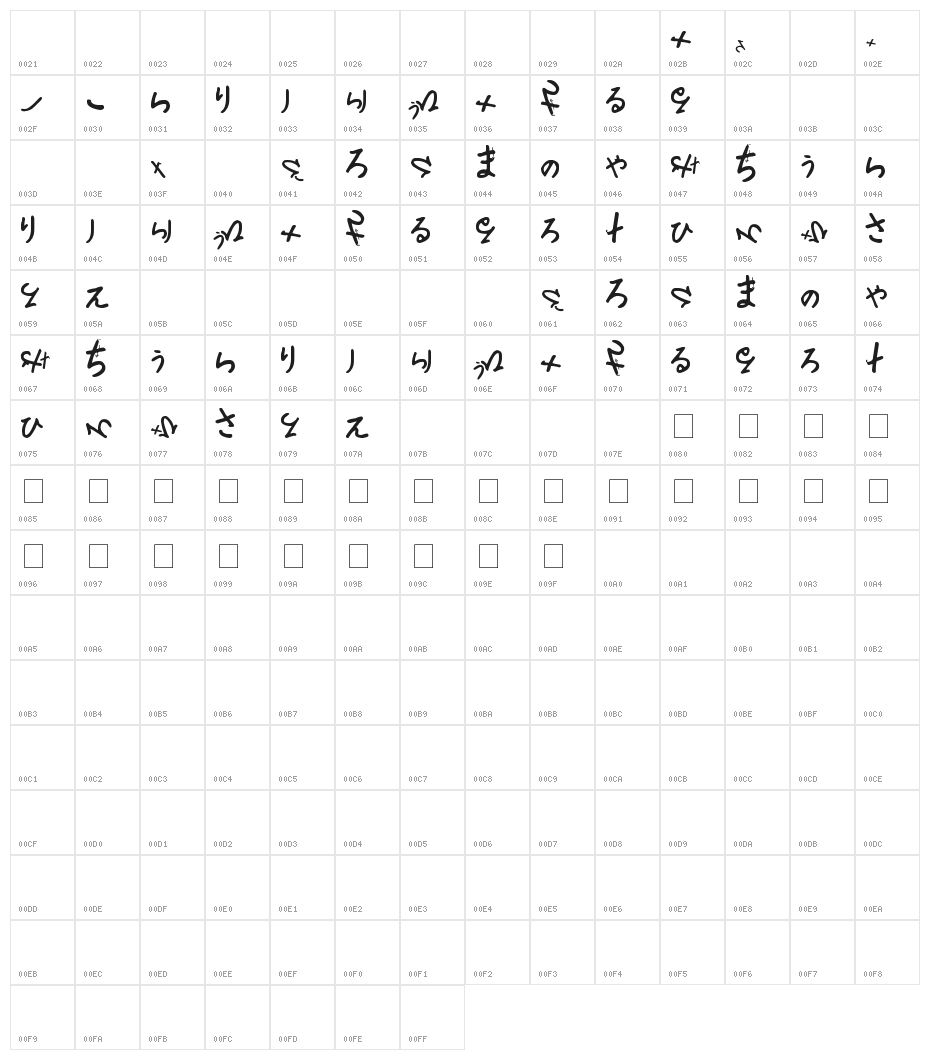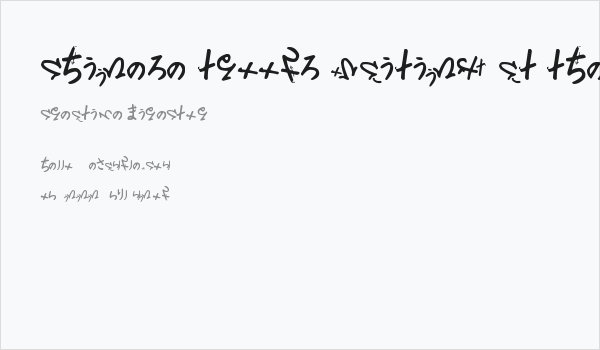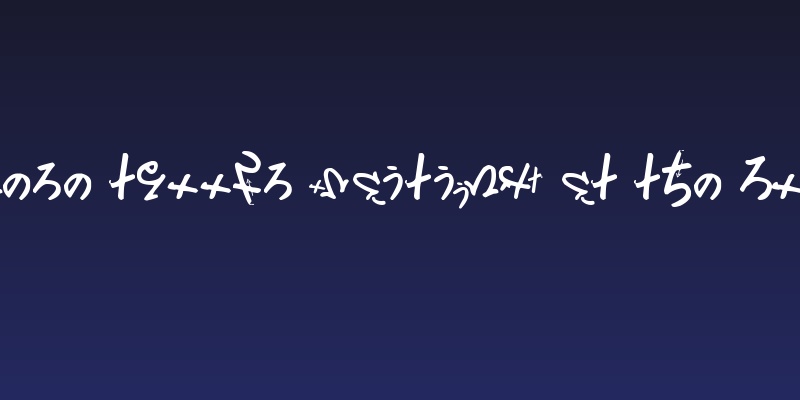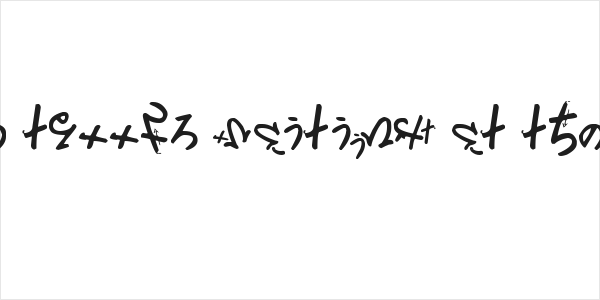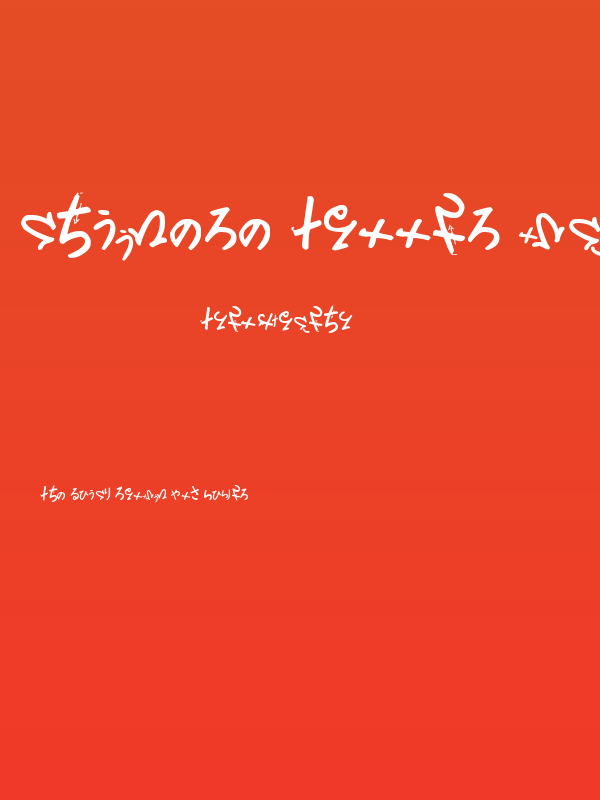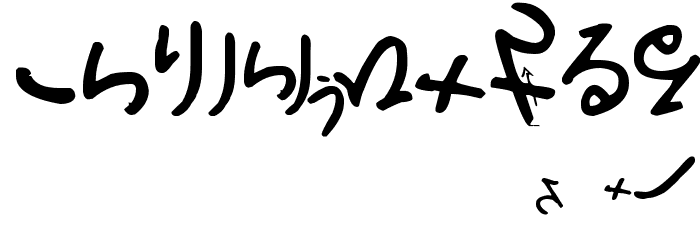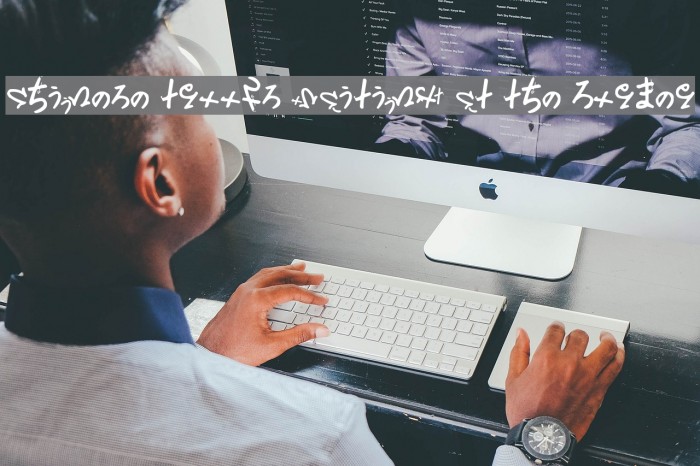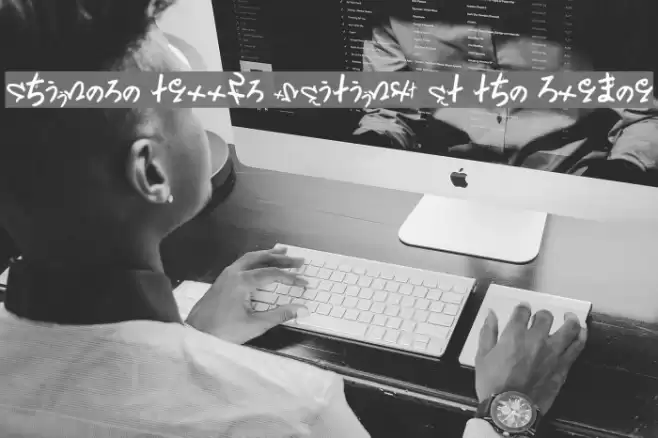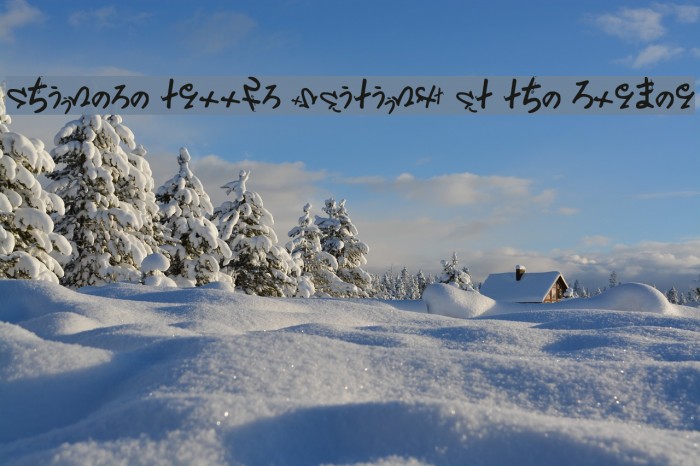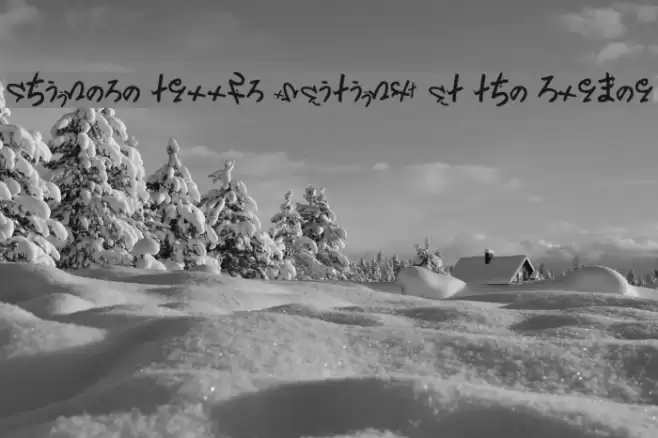
Chinese troops waiting at the border Font
Chinese troops waiting at the border Description
This font features a handwritten style with a playful and casual appearance. The characters are fluid and dynamic, with varying stroke thickness that adds a sense of movement and energy. The script-like quality gives it a personal touch, making it feel approachable and friendly. The strokes are slightly irregular, contributing to its informal and relaxed vibe. This font is well-suited for projects that require a human touch or a sense of spontaneity. Its unique character shapes and flowing lines make it stand out, while the overall legibility remains intact.
| Overall Style | Casual |
| Use Case | Logos, Invitations, Personal notes |
| Proposed Projects | Ideal for greeting cards, personal notes, informal invitations, and creative branding. |